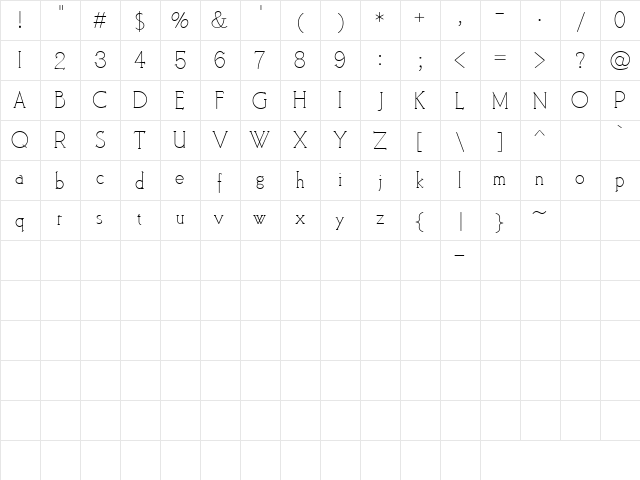
CK Cosmopolitan Regular Font Preview
CK Cosmopolitan Regular
Design Context for CK Cosmopolitan Typeface
CK Cosmopolitan offers clean, dependable letterforms without strong stylistic allegiance, making it a practical choice for designers who need flexibility.